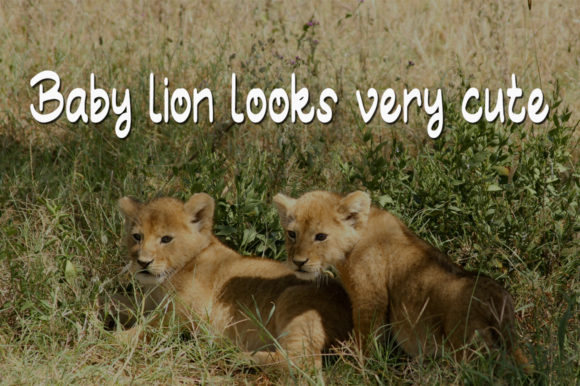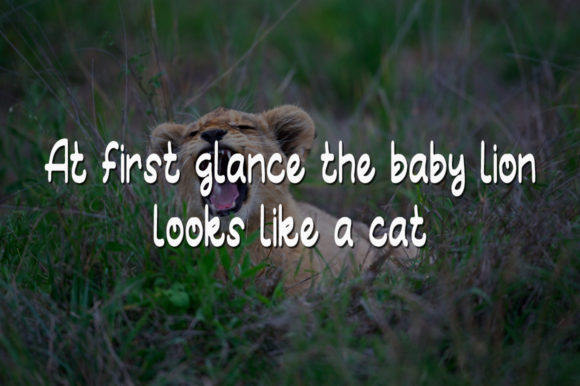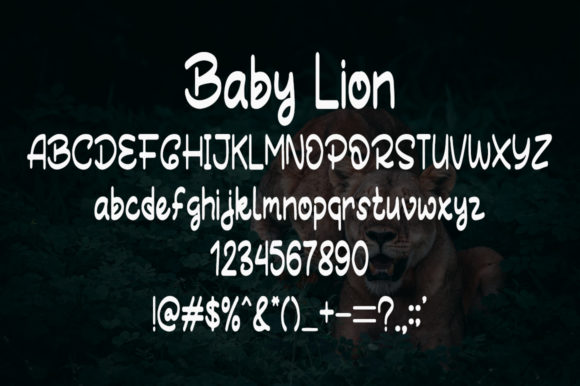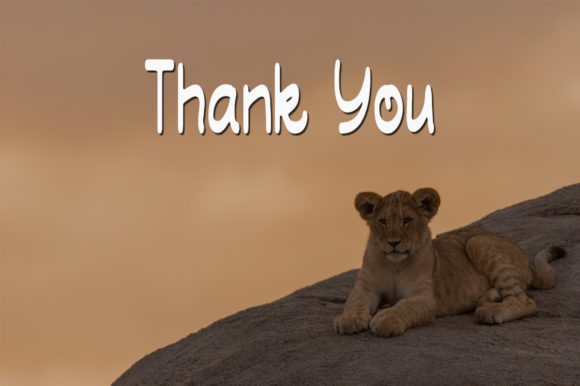
Baby Lion Font
About Baby Lion Font
Baby Lion is a delicate and elegant handwritten font. Its distinct and well rounded letters make this font a masterpiece. Fall in love with its incredibly versatile style and use it to create spectacular designs!